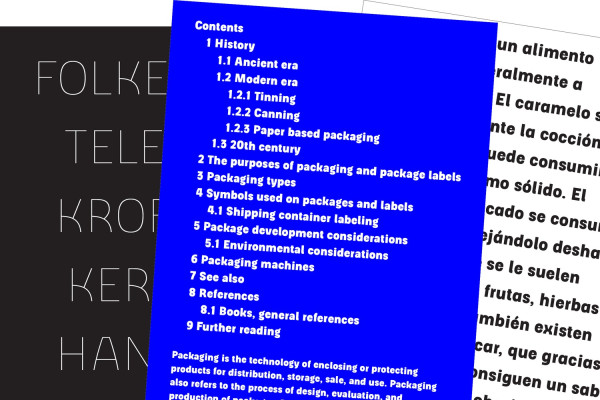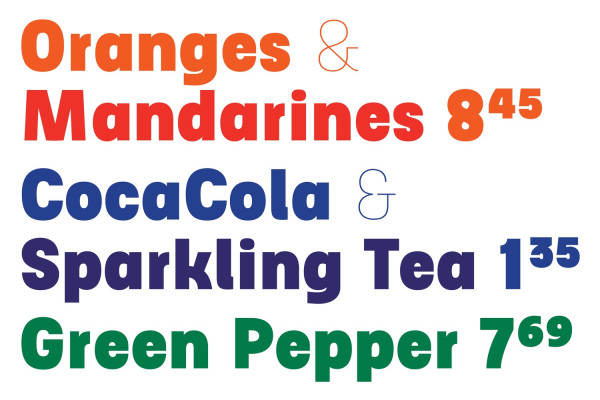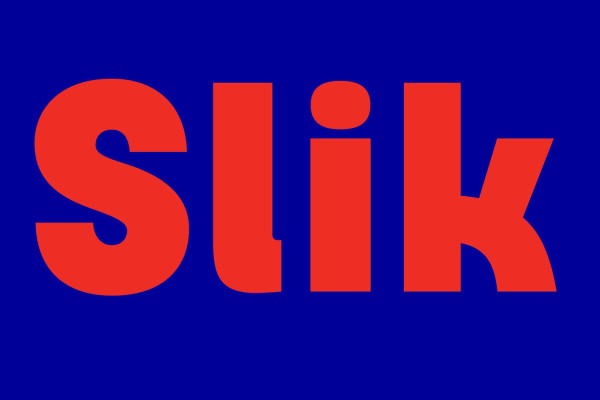
Slik Font
Slik Font is a type family developed with packaging in mind. It started as one word in the boldest weight while working on an update of the Swedish liquorice brand »Läkerol« , a rejected proposal with the logotype in all upper case letters. It has very characteristic elements and is still simple and consistent in a way that is suitable in packaging design. The family consists of seven weights from Ultralight to Extrabold. It contains some alternative characters more suitable for text & numbers for pricing.